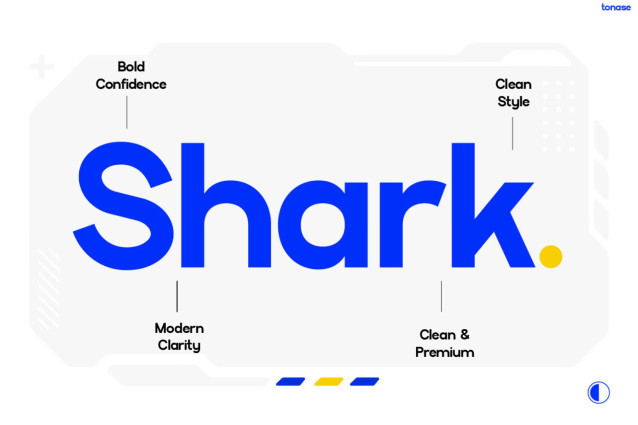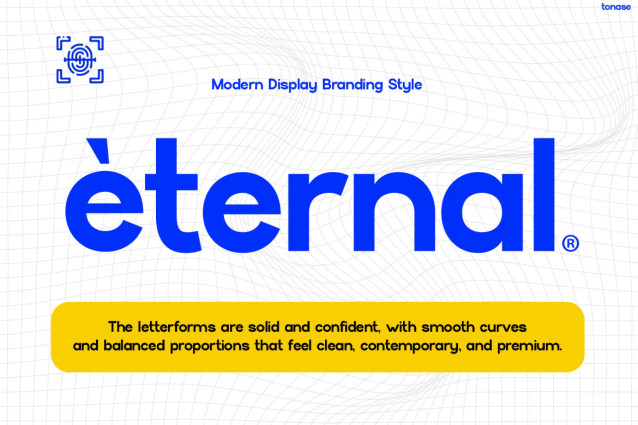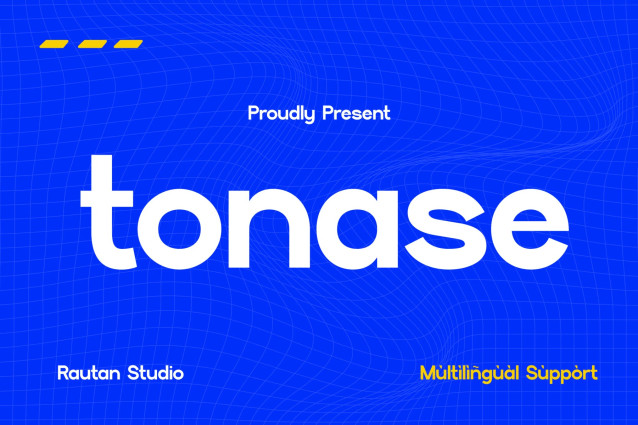
Tonase Font is a bold, modern display sans-serif font designed with clean, geometric structures and smooth, confident curves. Its wide, approachable letterforms carry a contemporary weight, featuring subtle, sharp terminal cuts that add a hint of tech-forward personality without feeling overly futuristic.
Best suited for tech startup branding, app interfaces, modern signage, product packaging, and bold editorial headlines. Use it for projects requiring a clean, premium aesthetic, such as website banners, landing page headers, and promotional graphics where clarity and visual presence are essential.